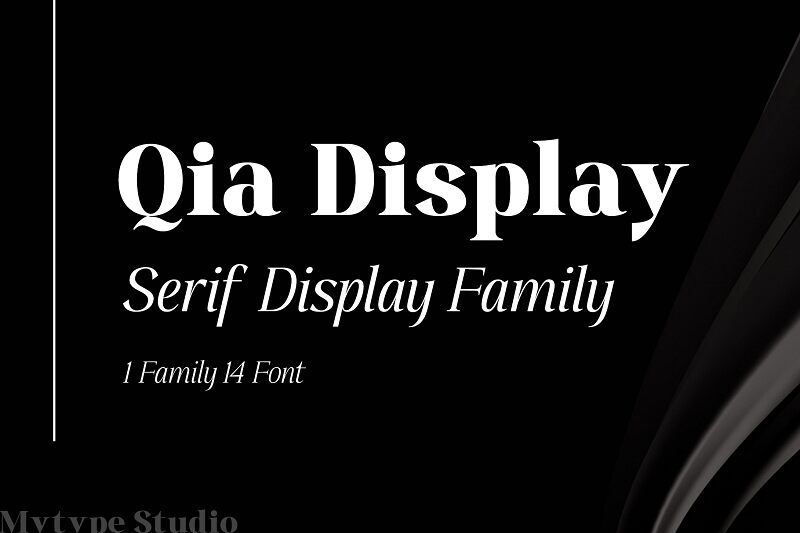
Qia Display Black Italic, a captivating member of the Qia Display font family designed by Mytype Studio, offers a striking serif font style. With its extra-bold weight, this font exudes confidence and sophistication. Its elegant curves and dramatic slant make it ideal for luxury branding projects that demand attention and convey premium quality.
Additionally, Qia Display Black Italic adds a touch of glamour to editorial designs such as high-end fashion magazines or opulent coffee table books.
Embrace the power of this unique typeface to elevate your design projects with an air of refinement and grandeur.